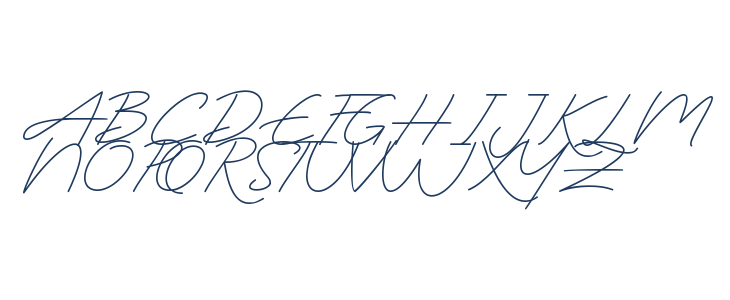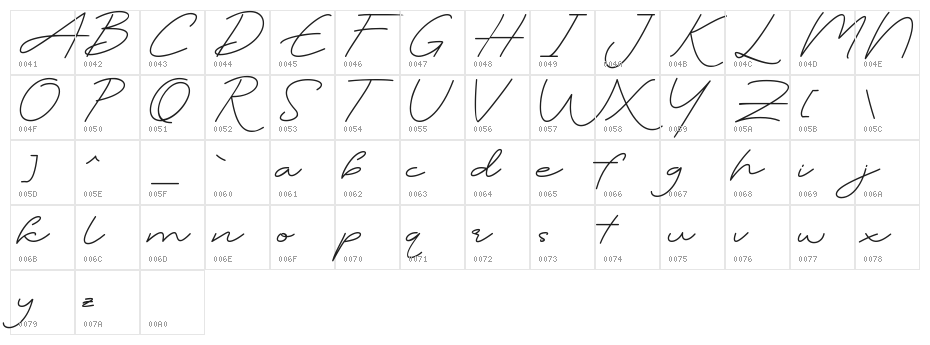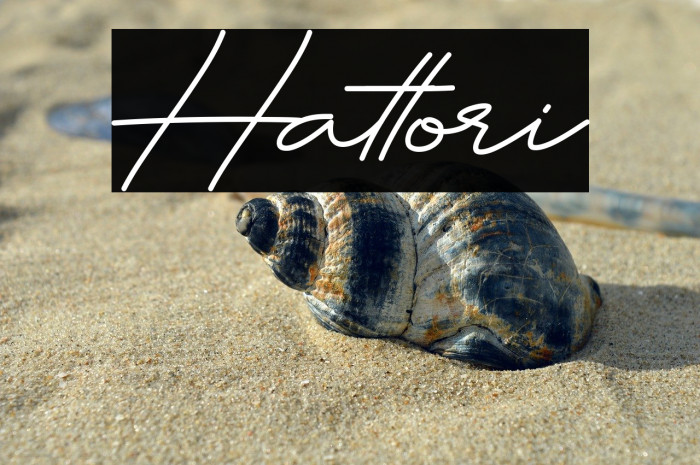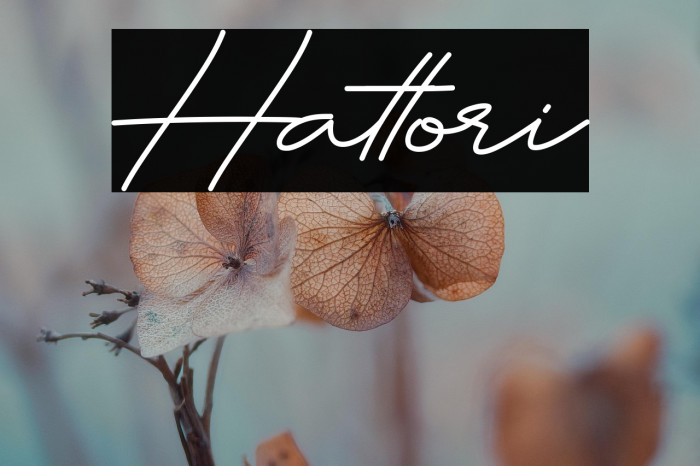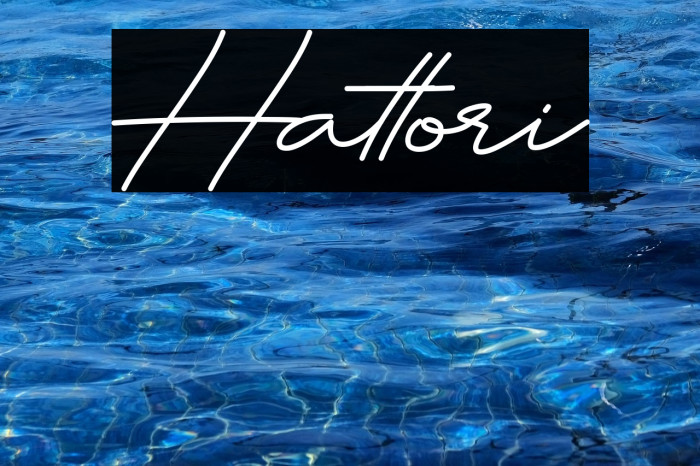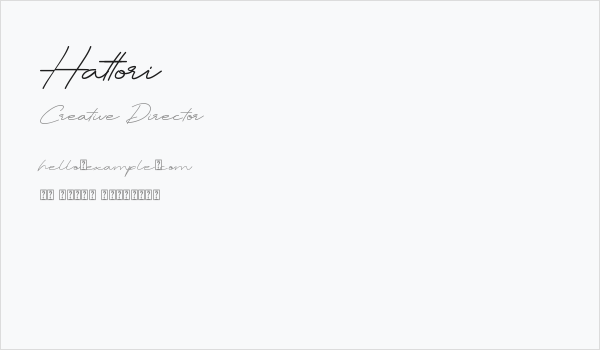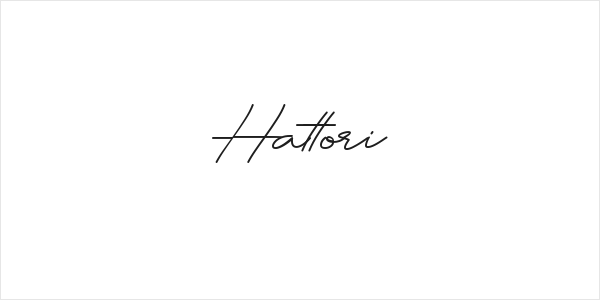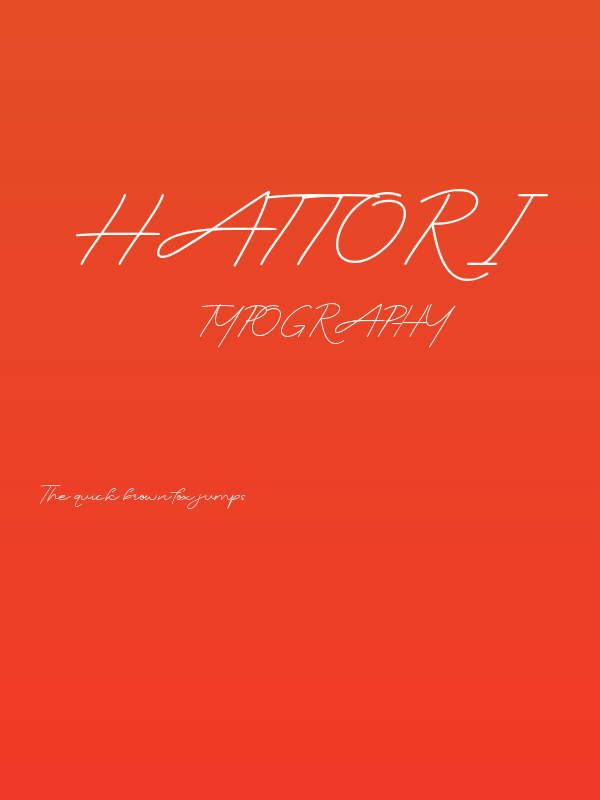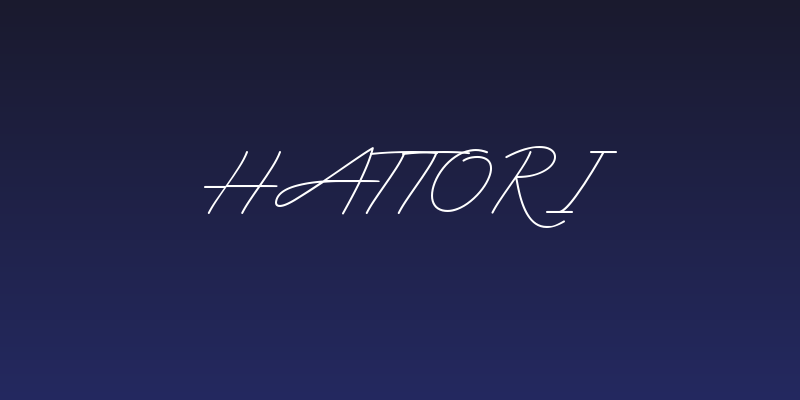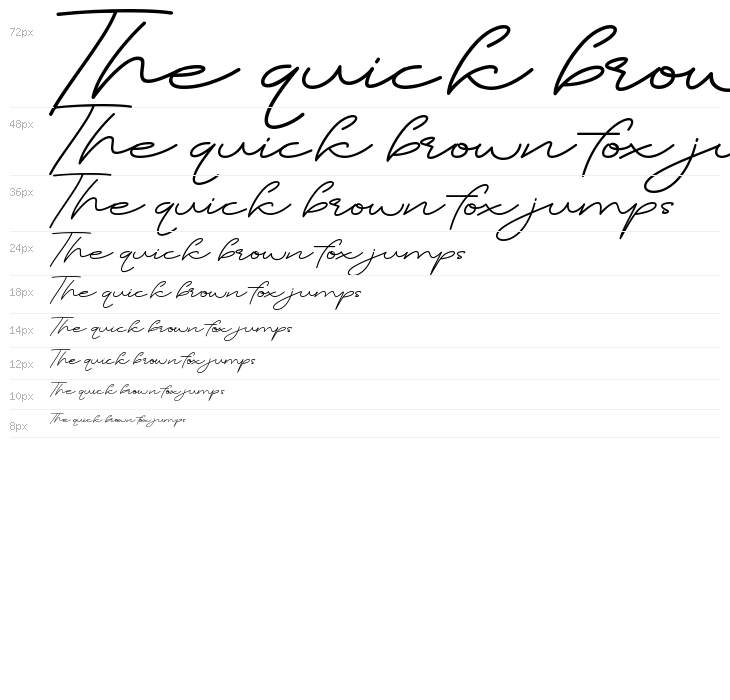
Hattori Font
Hattori Description
A delicate, monoline script font with a handwritten, cursive style. The characters are connected with smooth, flowing lines, featuring high ascenders and long descenders. The overall appearance is elegant and airy, with generous spacing and a modern, personal touch.
| Overall Style | Modern, Elegant, Handwritten |
| Use Case | Logos, Invitations, Personal notes, Headlines |
| Proposed Projects | Wedding invitations, personal branding, greeting cards, elegant logos, social media graphics. |